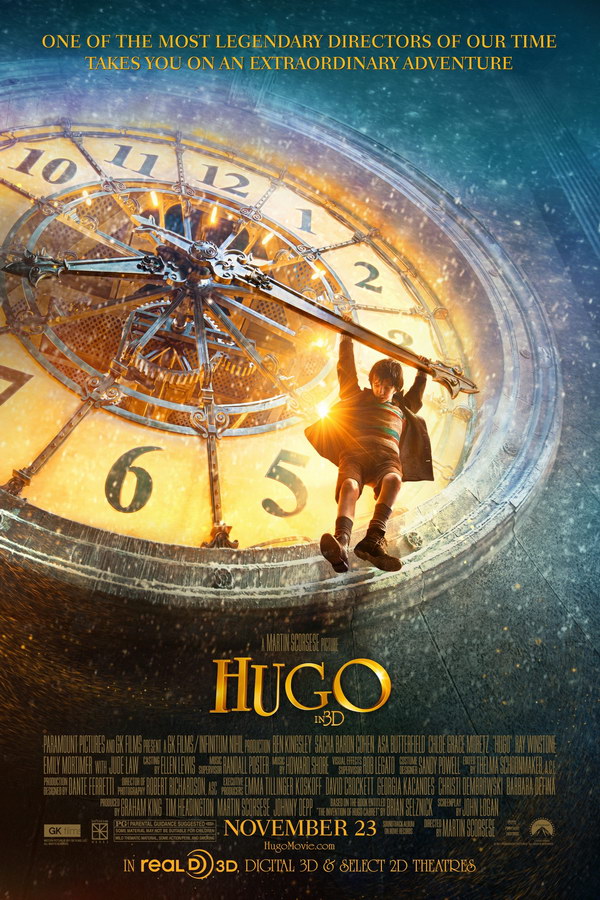
Hugo Font
DramaHugo is a 2011 American 3D historical adventure drama film directed by Martin Scorsese, based on the novel "The Invention of Hugo Cabret." The film follows the journey of a young orphan who lives in the walls of a Parisian train station and discovers a mystery surrounding his late father and a broken automaton.
The title ''Hugo'' on the movie poster likely features the University Roman Bold font, with a striking golden 3D effect. University Roman is a commercially designed font by Michael Daines and can be purchased here.